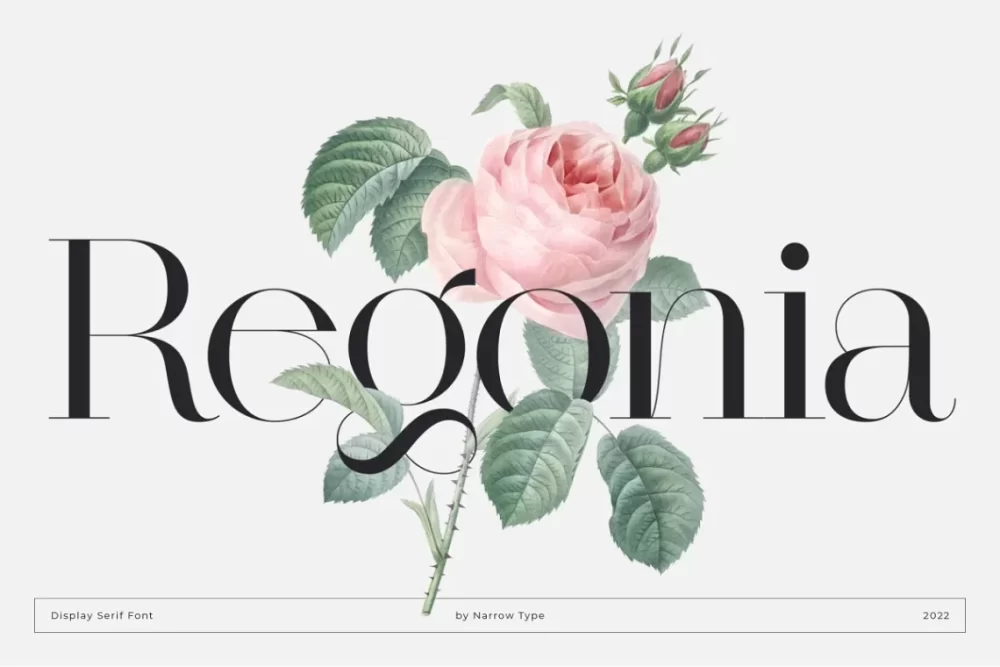
Regonia is a modern, high-contrast display serif typeface inspired by neoclassical typefaces like Didot or Bodoni. It features thin hairlines and unique curvy details, giving it an elegant and contemporary look.
It is well-suited for headlines and larger text sizes due to its large x-height. It also comes with a variety of ligatures and stylistic variations, allowing for creative and distinctive typography.
This font is perfect for projects that require a touch of sophistication and elegance, such as editorial design, branding, wedding invitations, or fashion magazines.